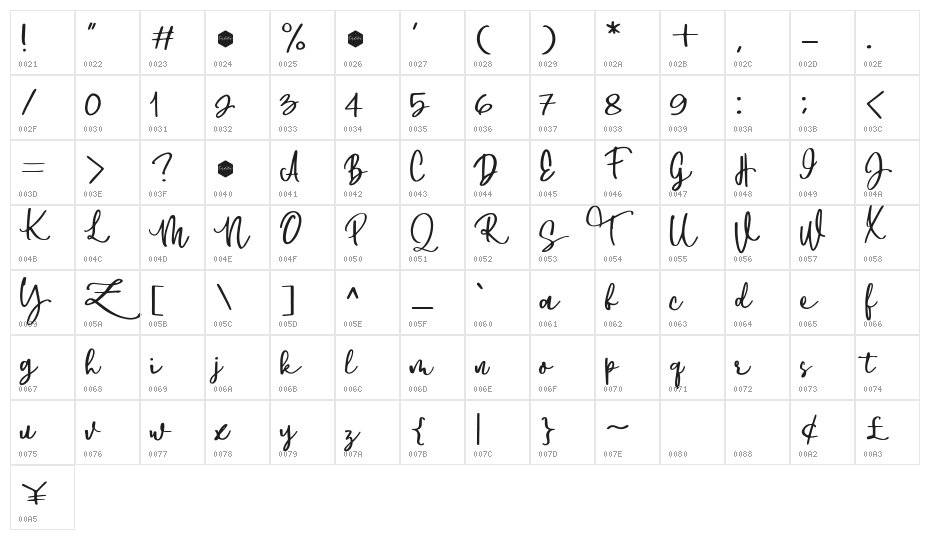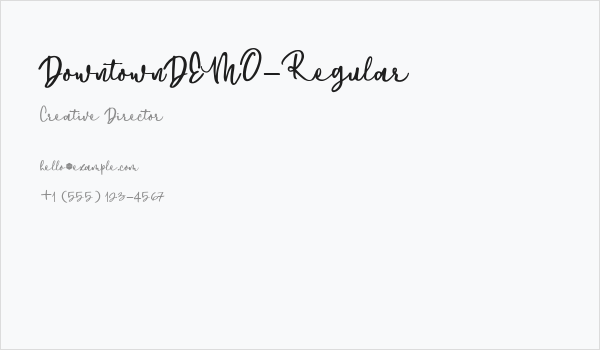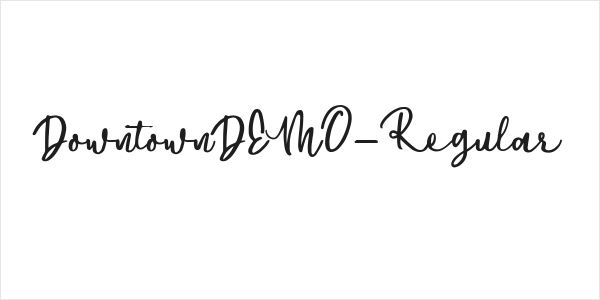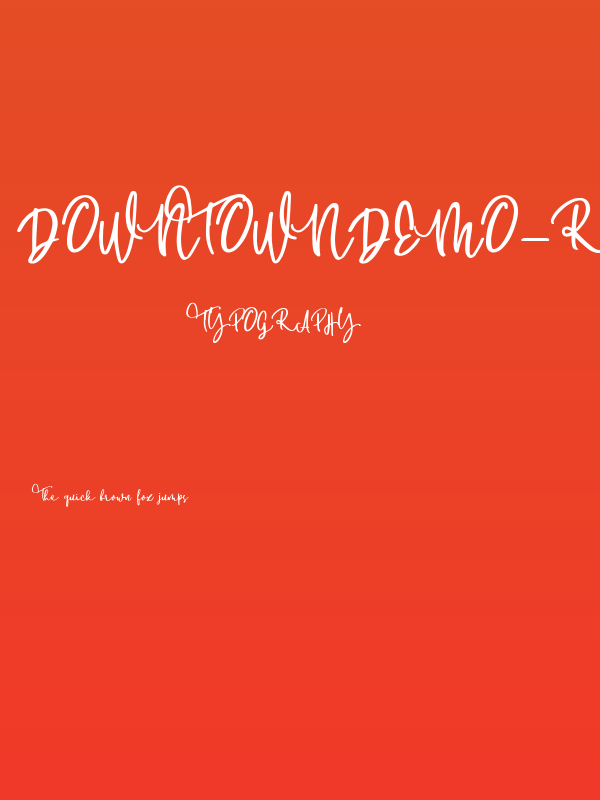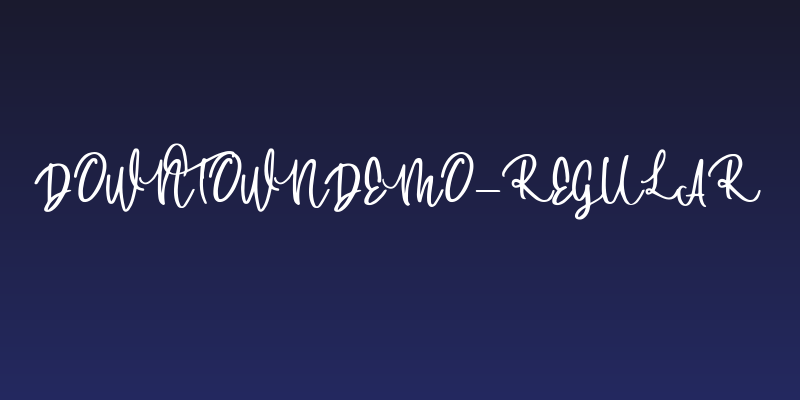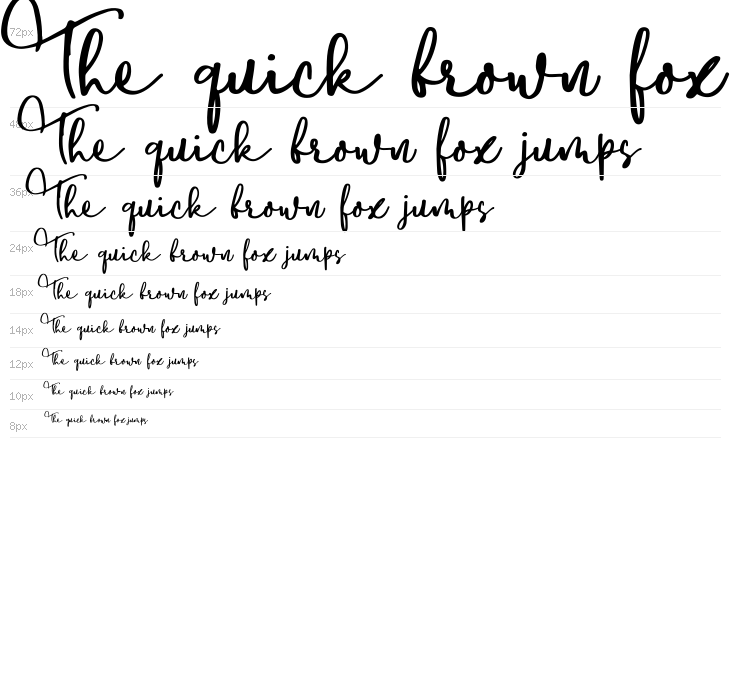
DowntownDEMO-Regular Font
DowntownDEMO-Regular Description
This font exudes a lively and dynamic character, with its fluid and cursive script style. The letters are interconnected, creating a seamless flow that mimics natural handwriting. The uppercase letters are bold and expressive, while the lowercase letters maintain a consistent rhythm and elegance. Numbers and special characters are crafted with the same attention to detail, ensuring a cohesive look across all elements. The overall appearance is both playful and sophisticated, making it suitable for a variety of creative projects.
| Proposed Projects | Ideal for greeting cards, invitations, branding, and social media graphics. |